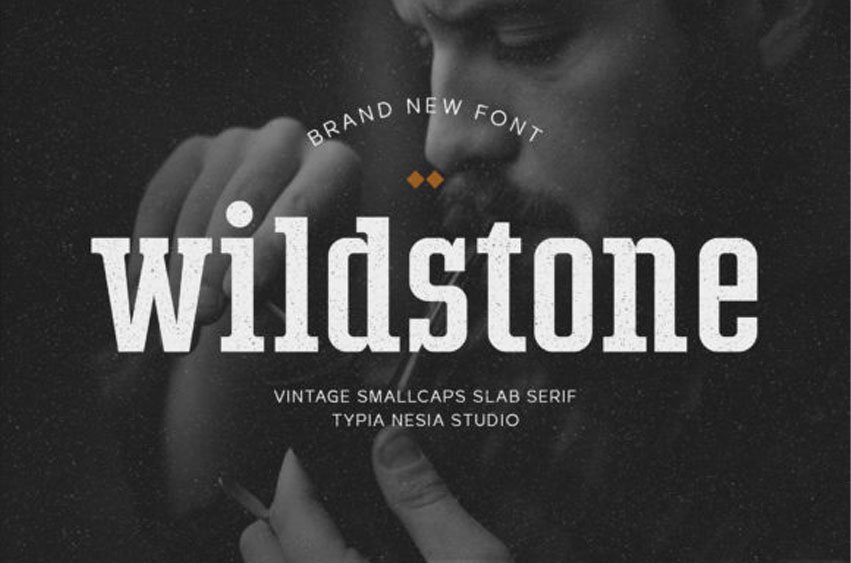
Wildstone Font is a cool and vintage styled looking slab serif font.
Suitable to a wide variety of designs due to its neat and simple style, this font has the potential to become your favorite go-to font, no matter the occasion!